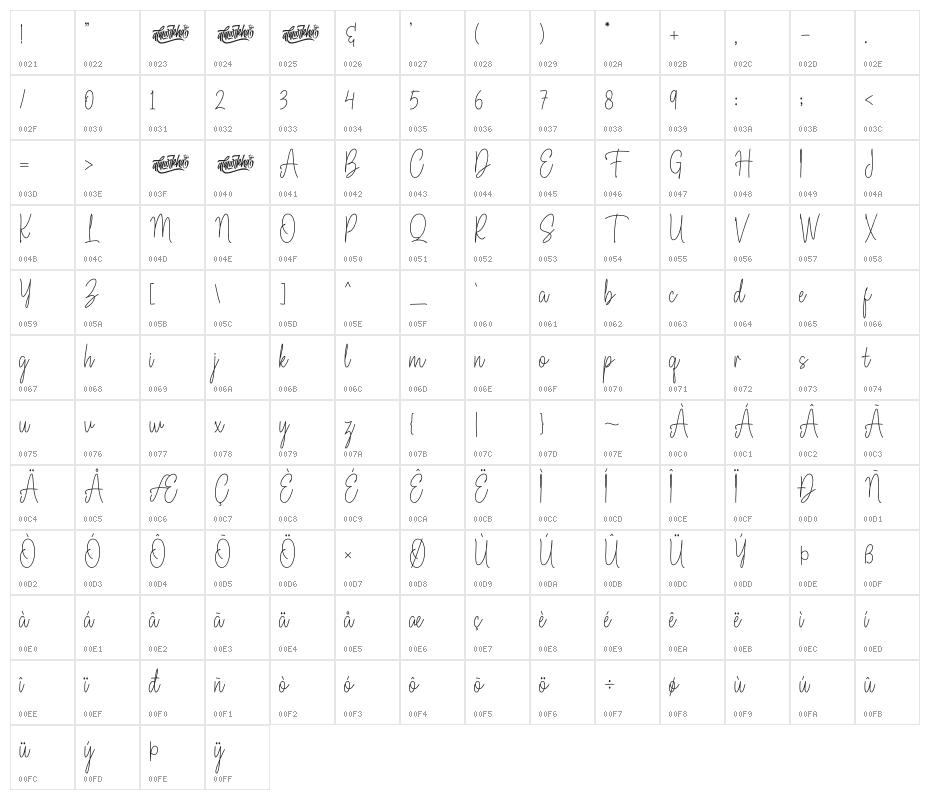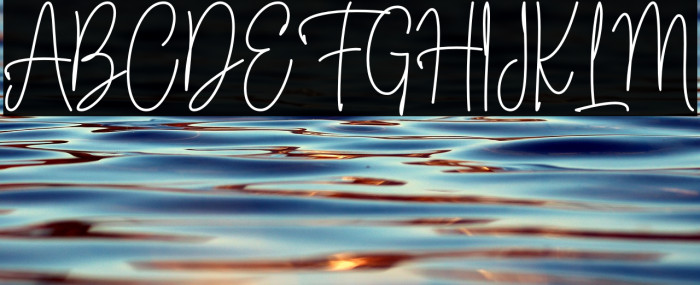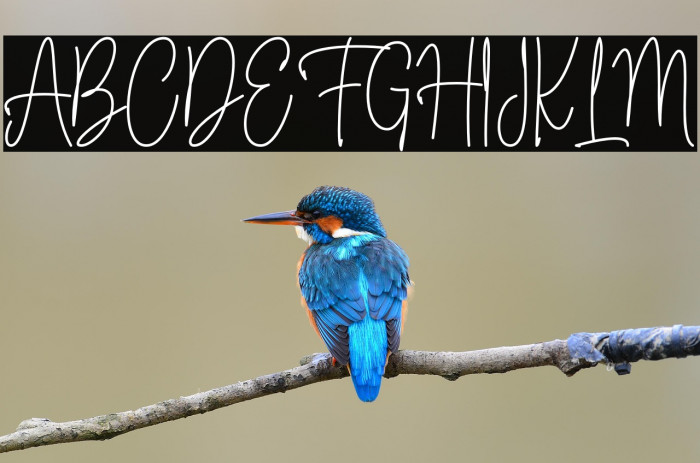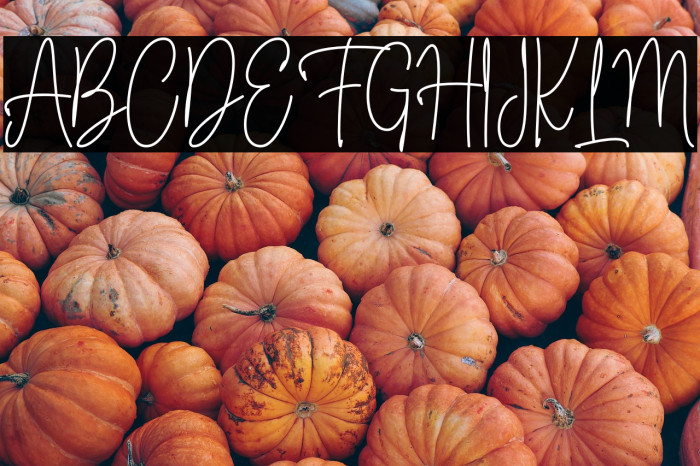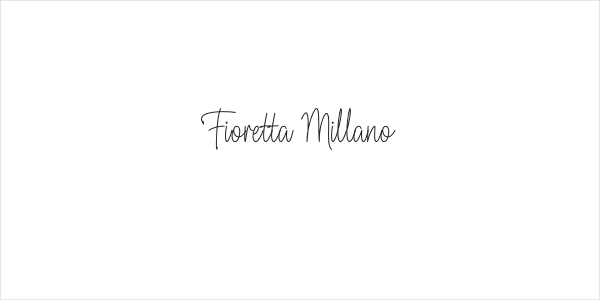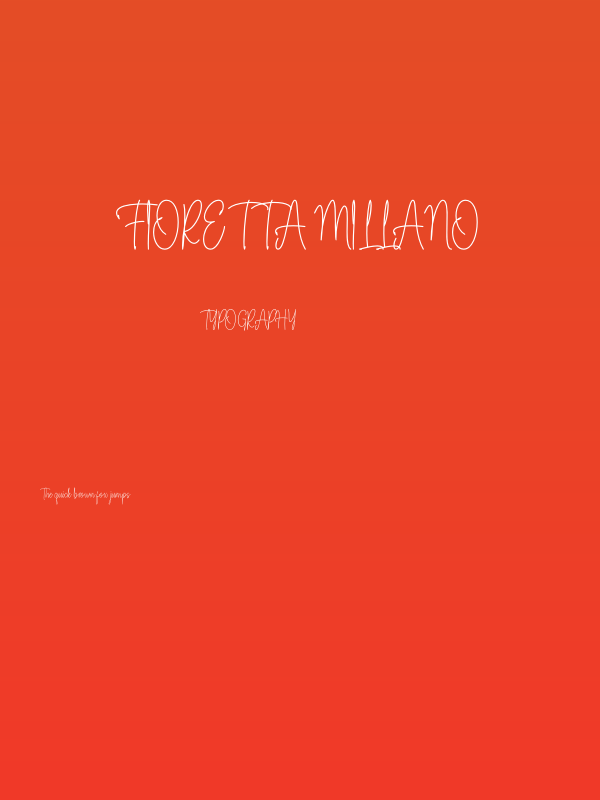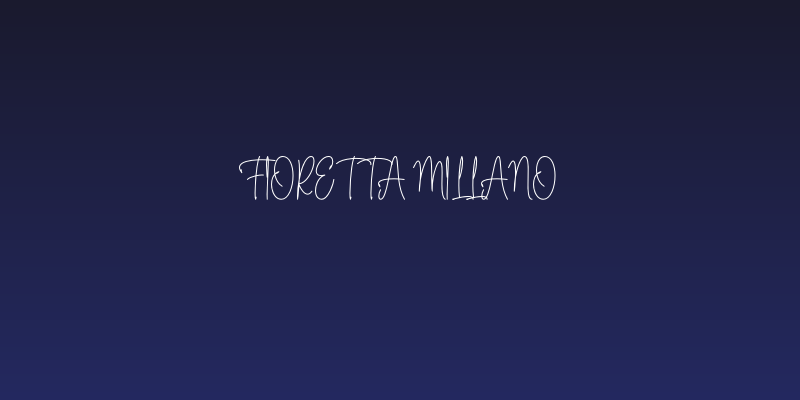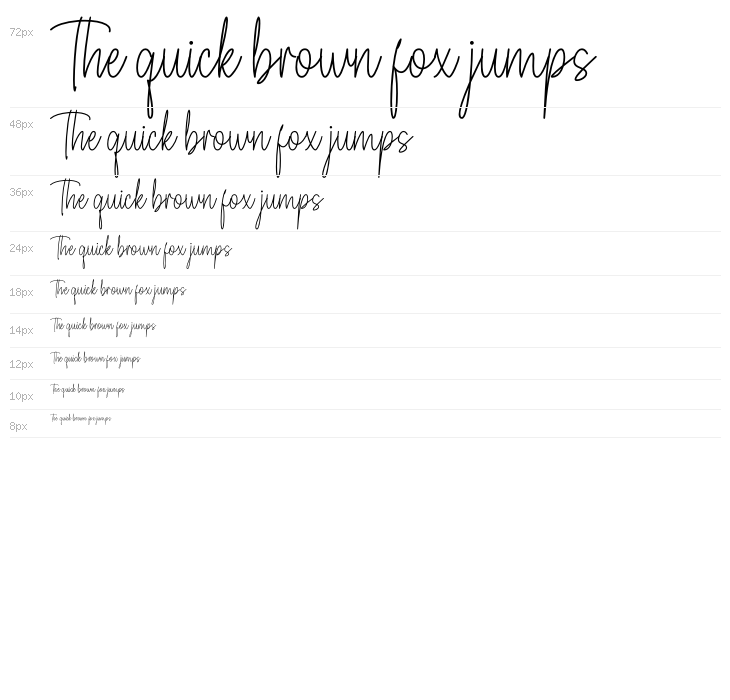
Fioretta Millano Font
Fioretta Millano Description
This font features a flowing, cursive style with elegant, elongated letterforms that convey a sense of grace and sophistication. The uppercase letters are particularly tall and slender, with sweeping curves and loops that add a decorative flair. The lowercase letters maintain a consistent style, offering a harmonious blend of curves and straight lines. The numerals are designed to match the overall aesthetic, with a similar emphasis on height and fluidity. Special characters are included, maintaining the same stylistic elements, ensuring a cohesive look across all text. This font is ideal for projects that require a touch of elegance and personality.
| Overall Style | Elegant, Decorative |
| Use Case | Headlines, Invitations, Branding |
| Proposed Projects | Ideal for wedding invitations, elegant branding, personal stationery, and decorative headlines. |